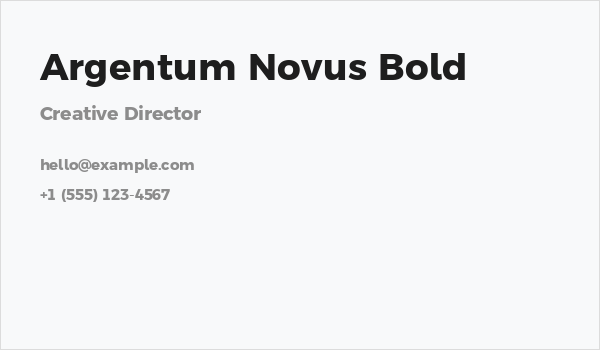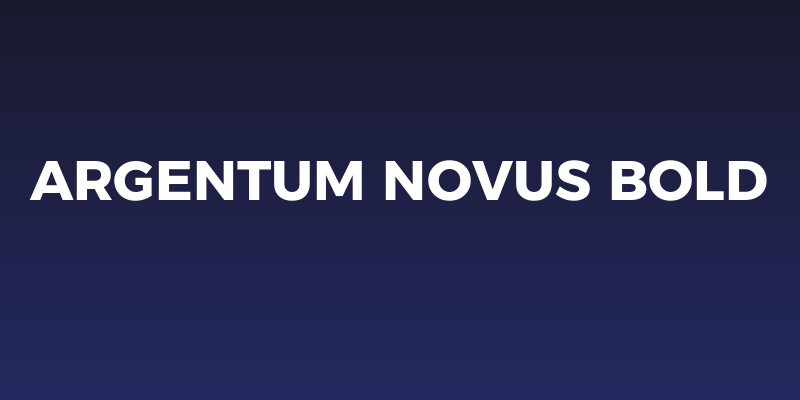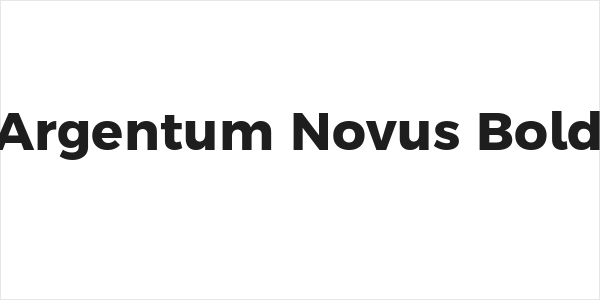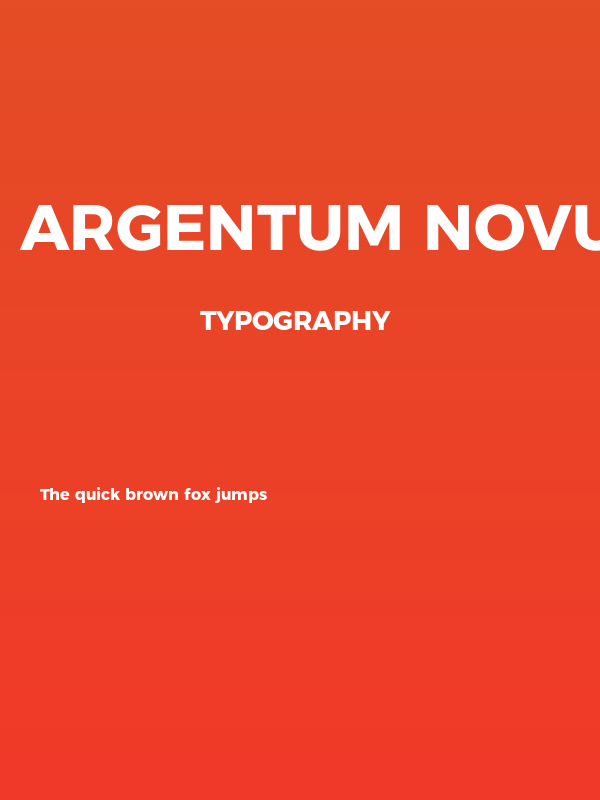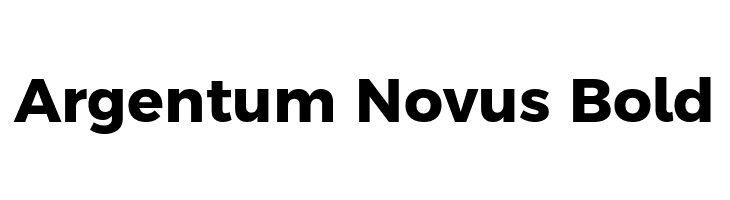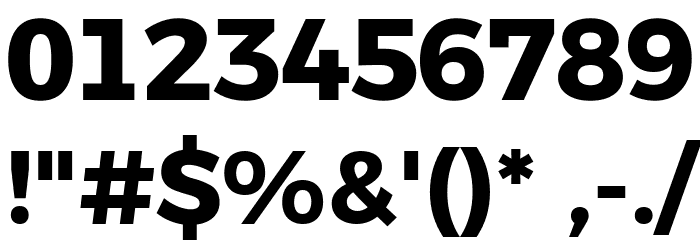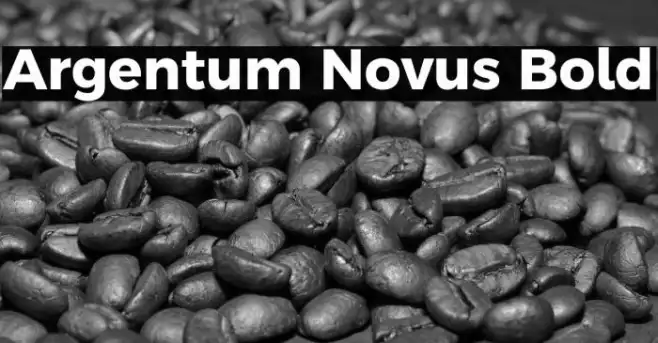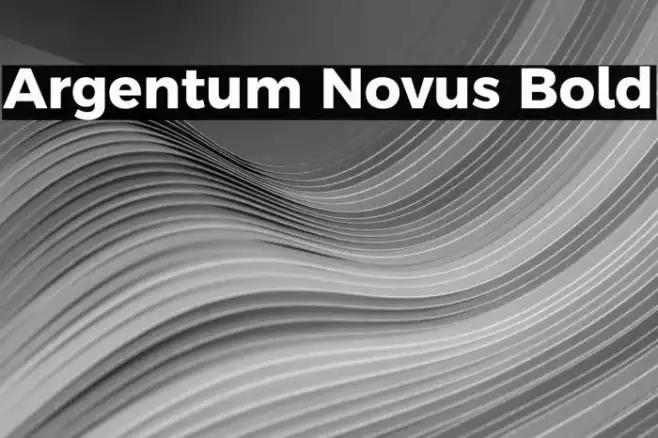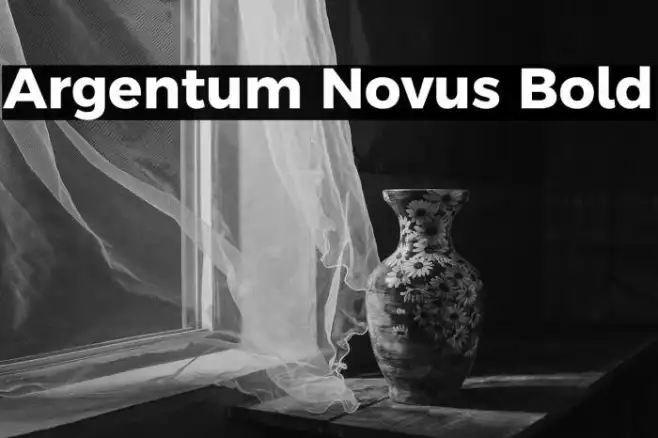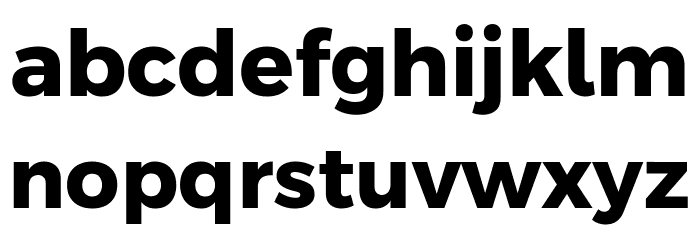
Argentum Novus Bold Font
Argentum Novus Bold Description
This font features a bold and modern sans-serif style with clean, geometric lines. The characters are well-balanced with a uniform stroke width, giving it a strong and confident appearance. The uppercase letters are slightly taller than the lowercase, providing a clear distinction between the two. The numerals are consistent with the overall style, maintaining the bold and straightforward design. Special characters are included and match the boldness of the alphabetic characters, ensuring a cohesive look across all text elements.
| Proposed Projects | Ideal for branding, headlines, posters, and digital media where a strong, modern presence is desired. |